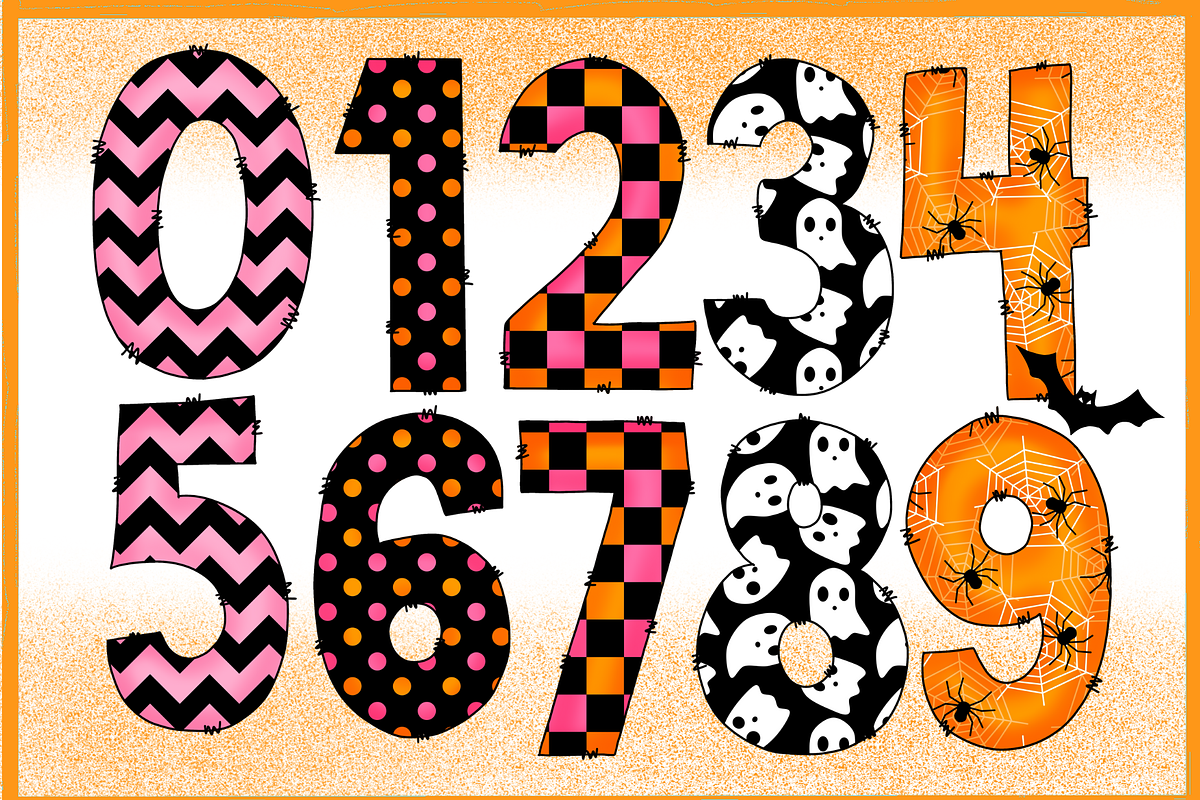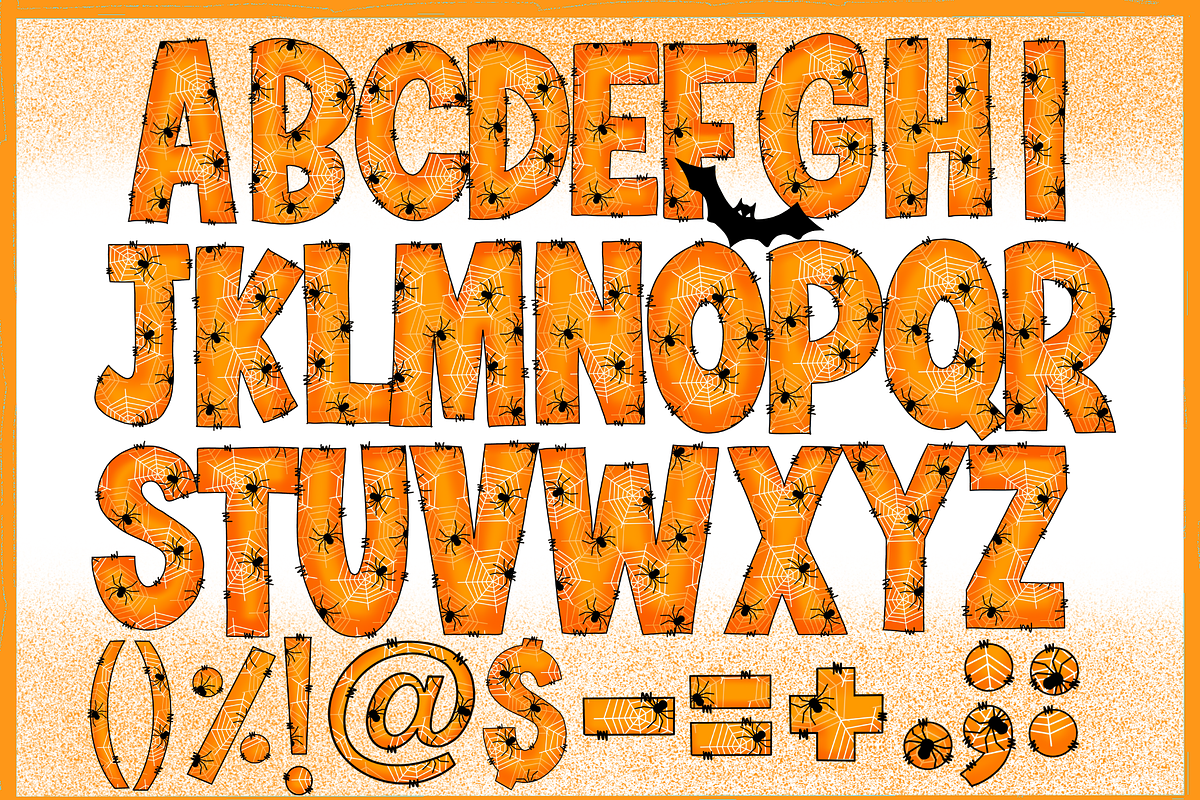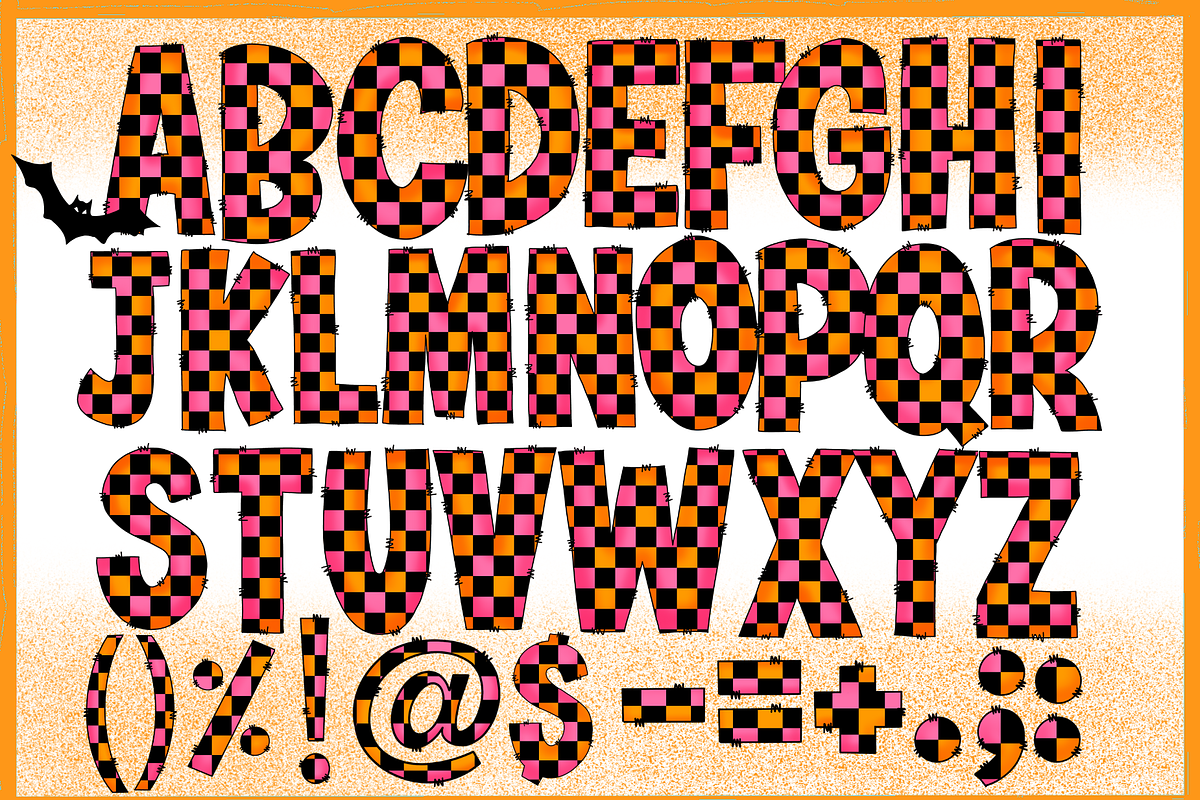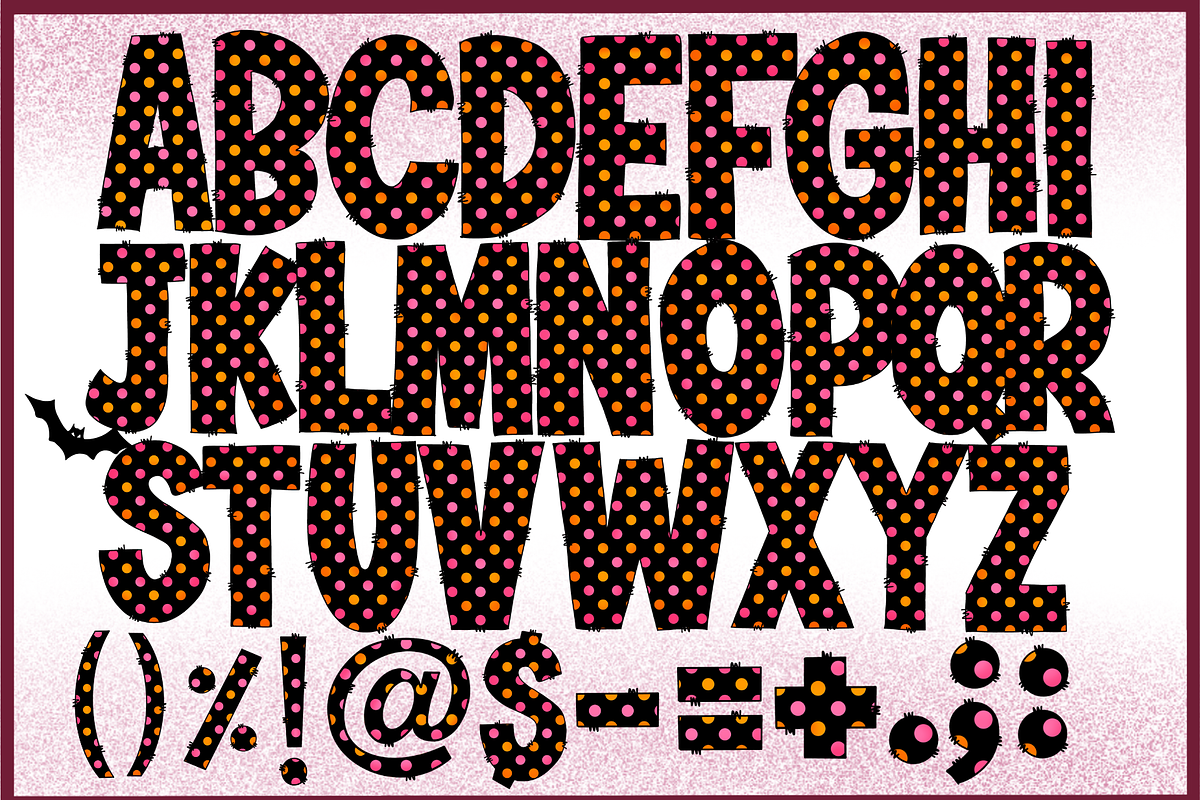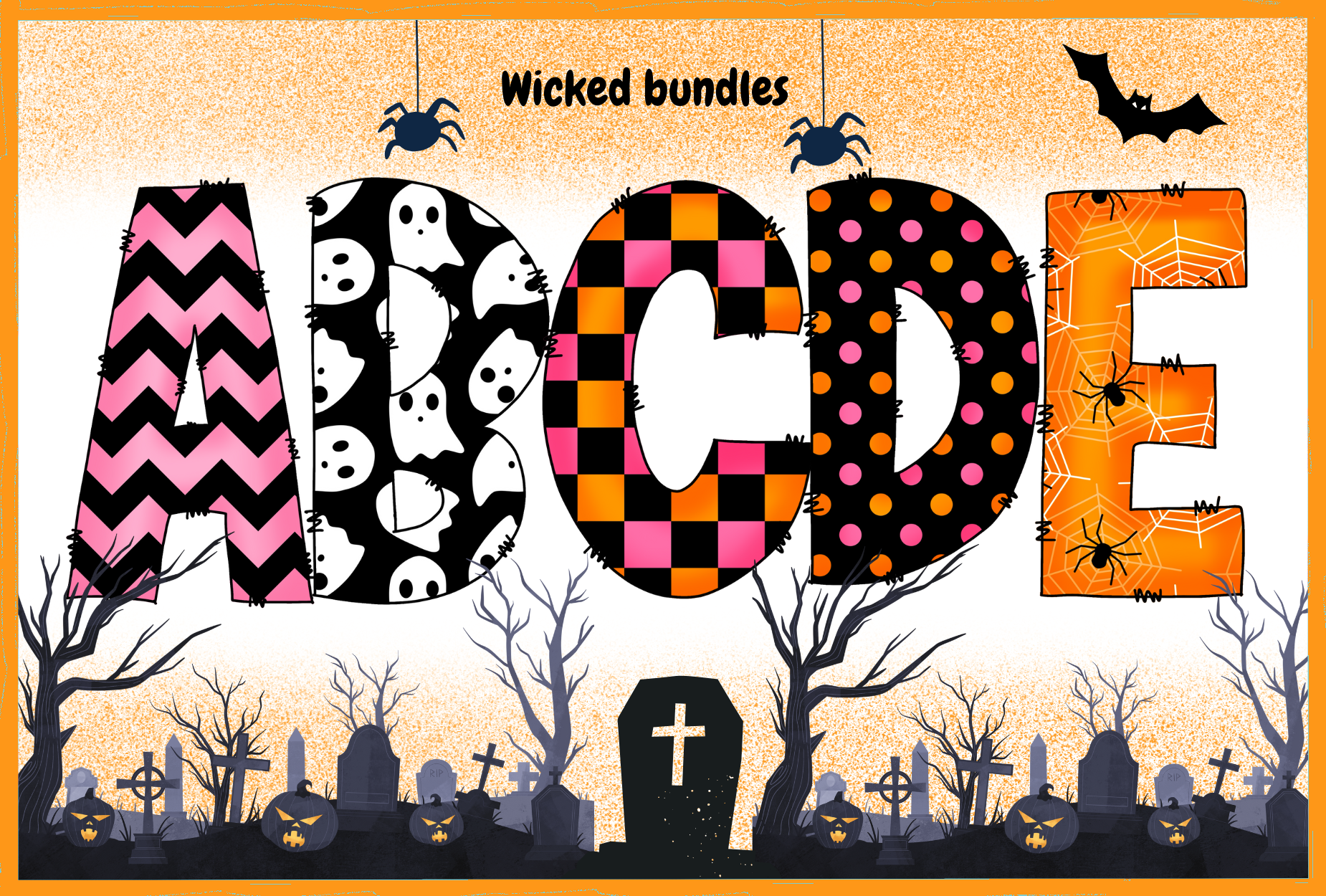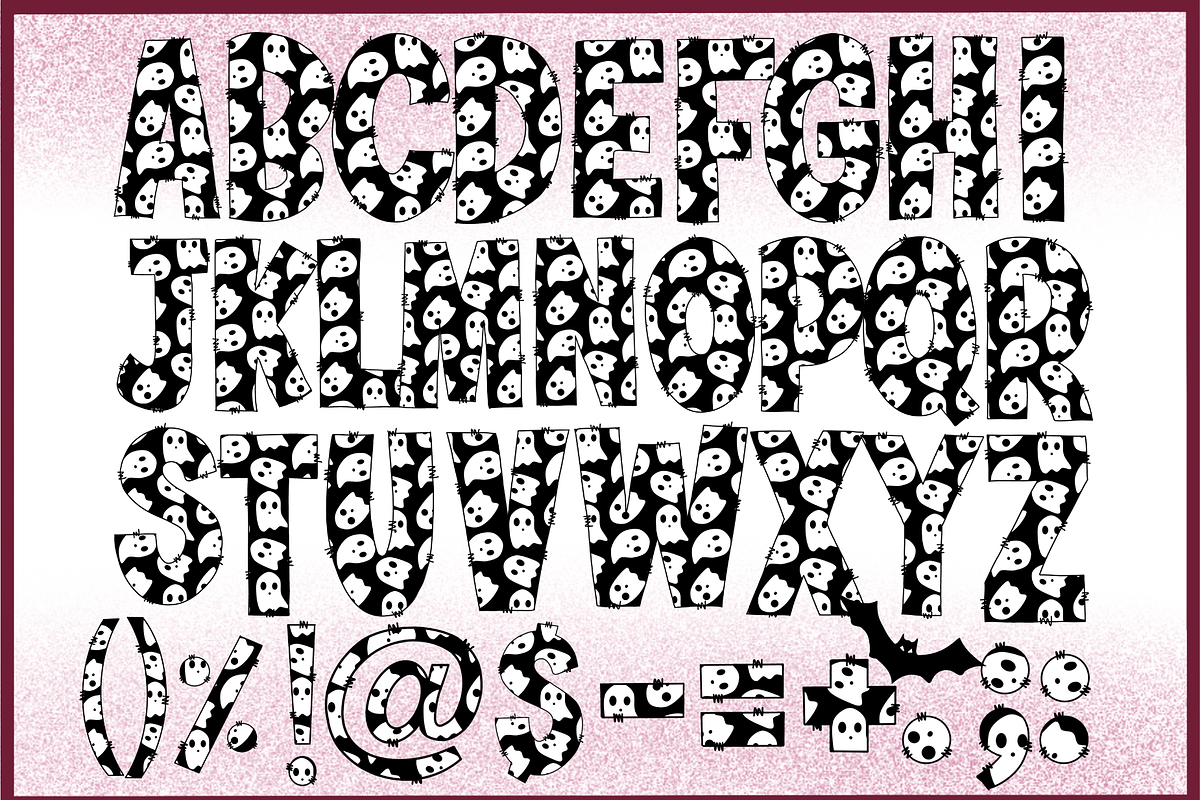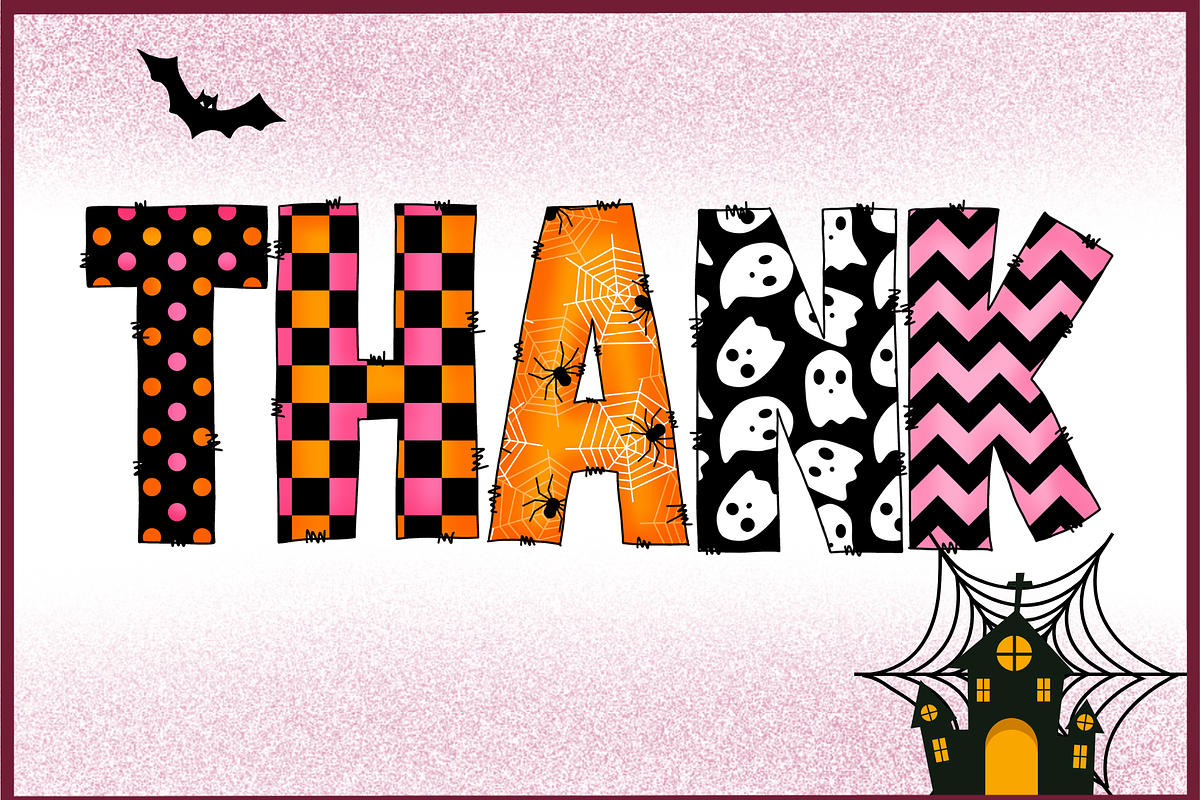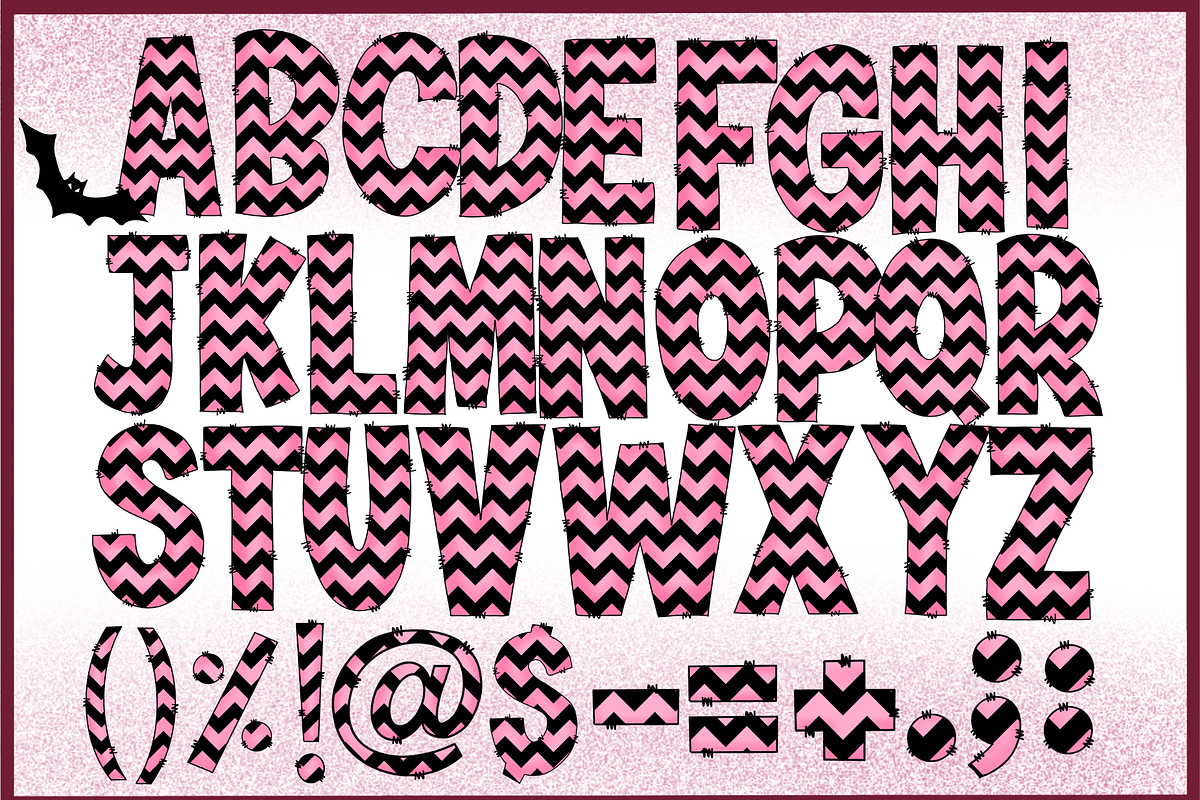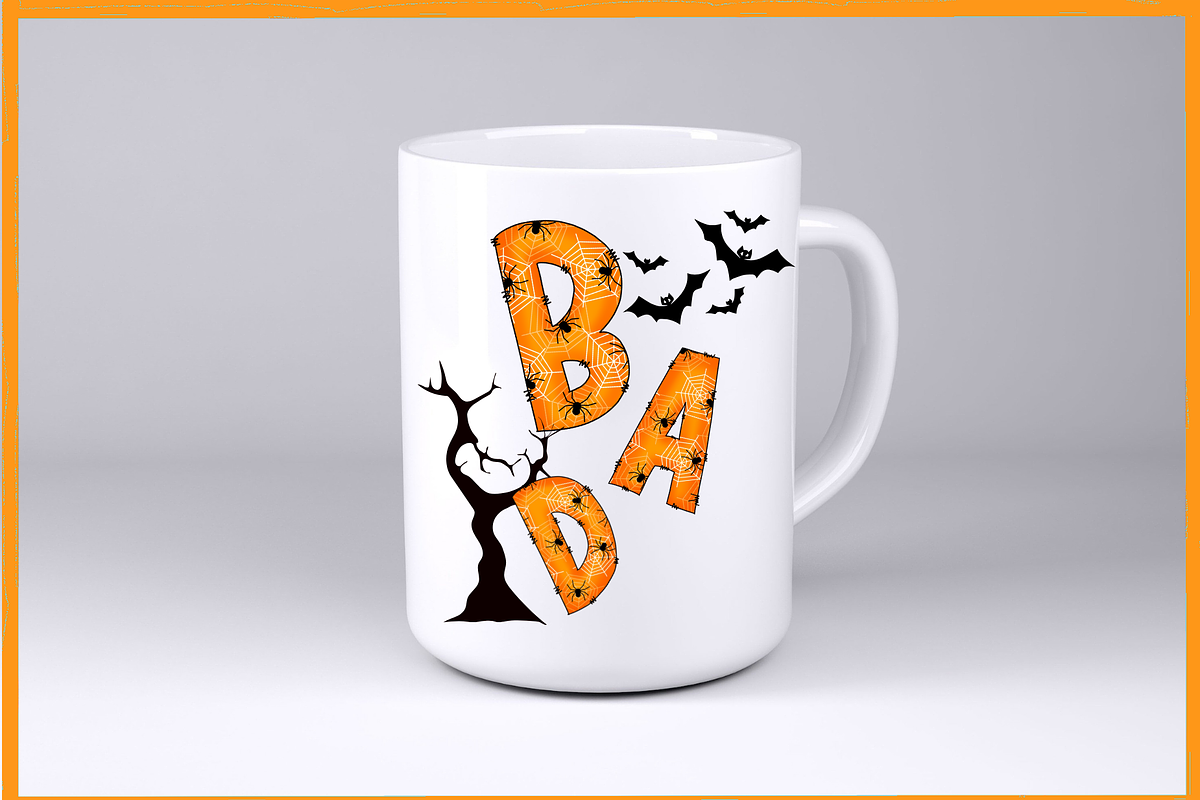
Wicked-PNG fonts
Wicked1 Font
This Halloween-themed decorative font bursts with personality, combining bold block-style lettering with playful seasonal patterns that instantly capture attention. Each letter is uniquely filled with designs such as ghosts, cobwebs, bats, chevrons, and polka dots, transforming typography into a lively graphic element rather than just text.